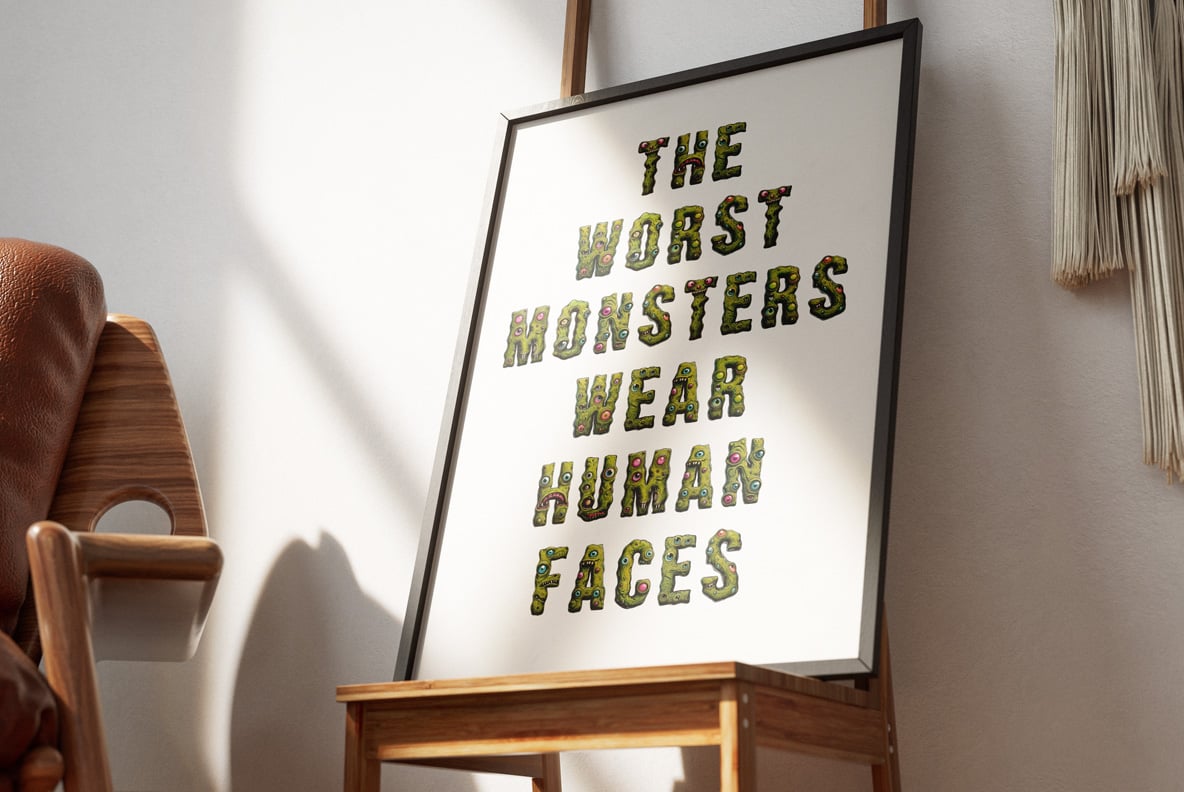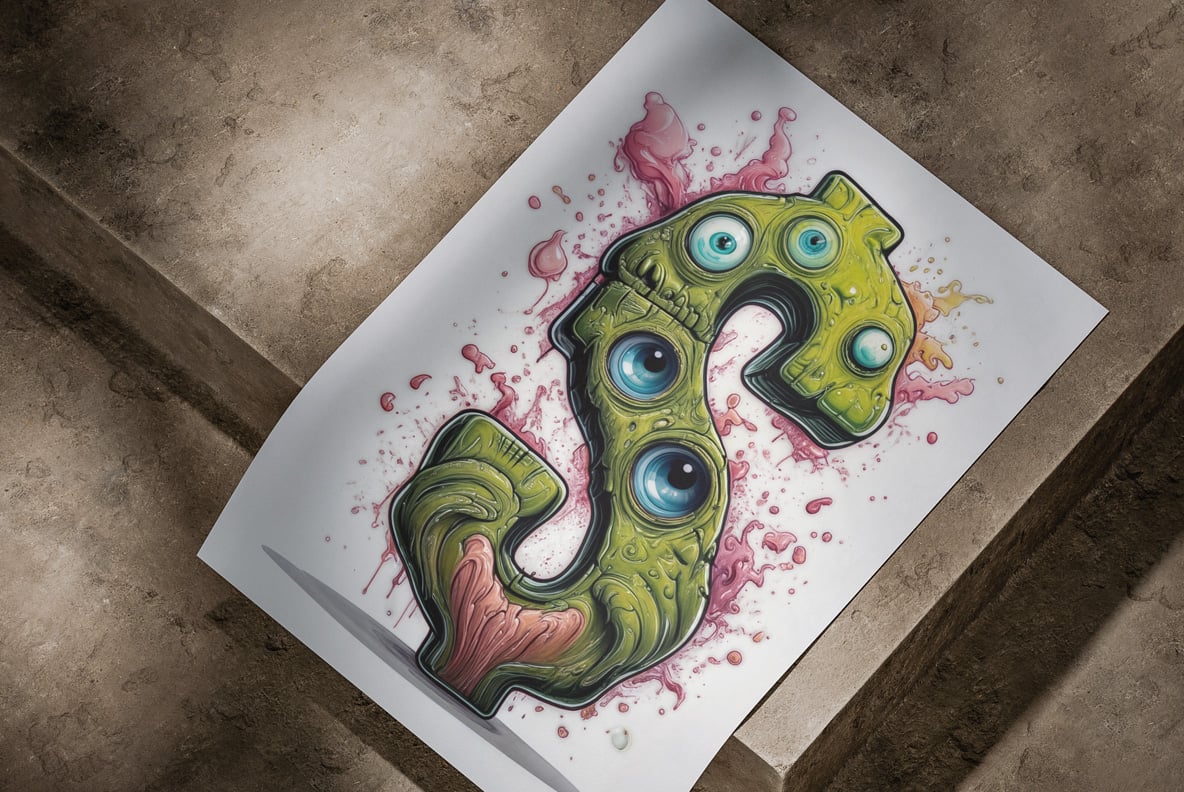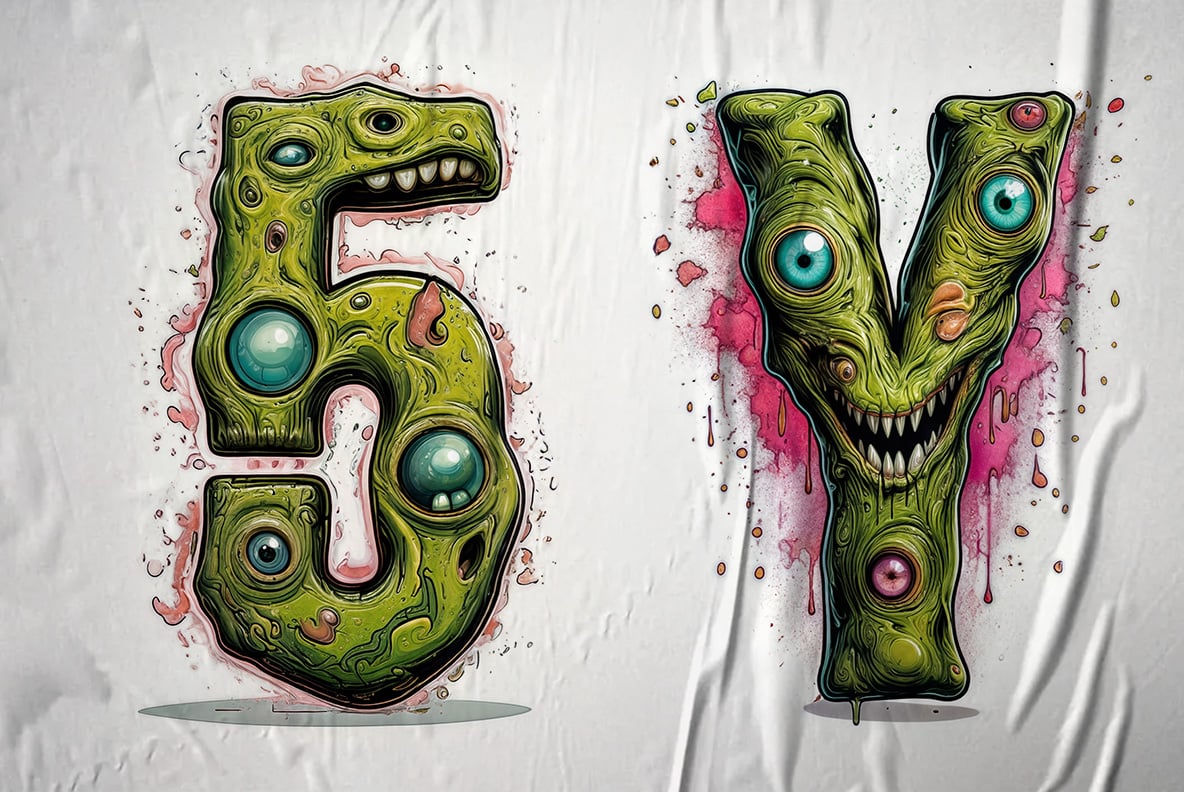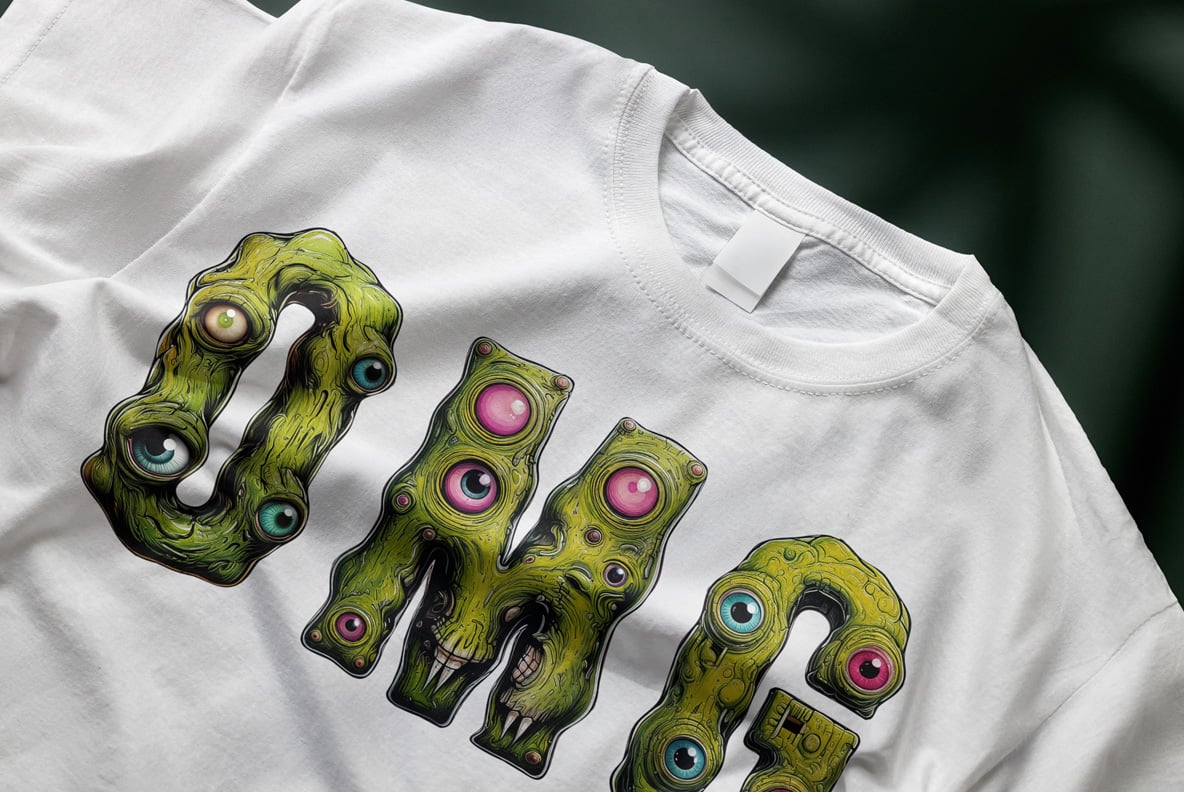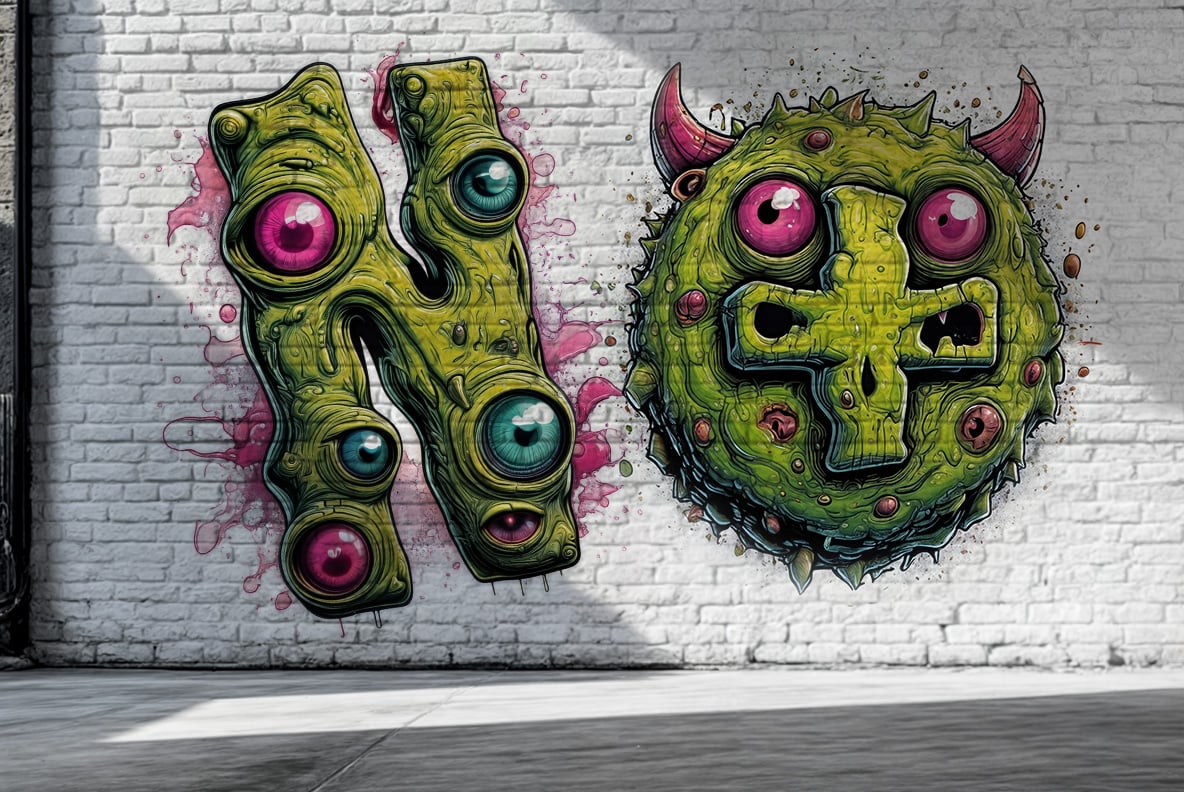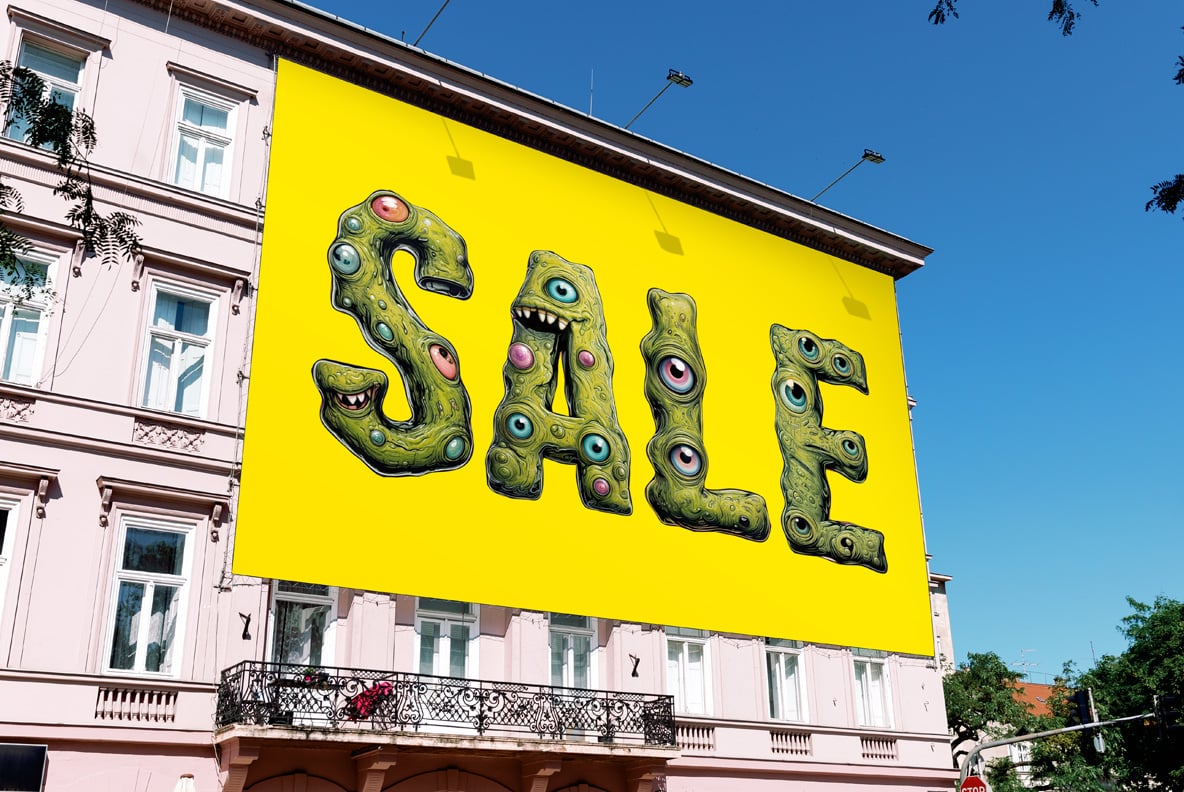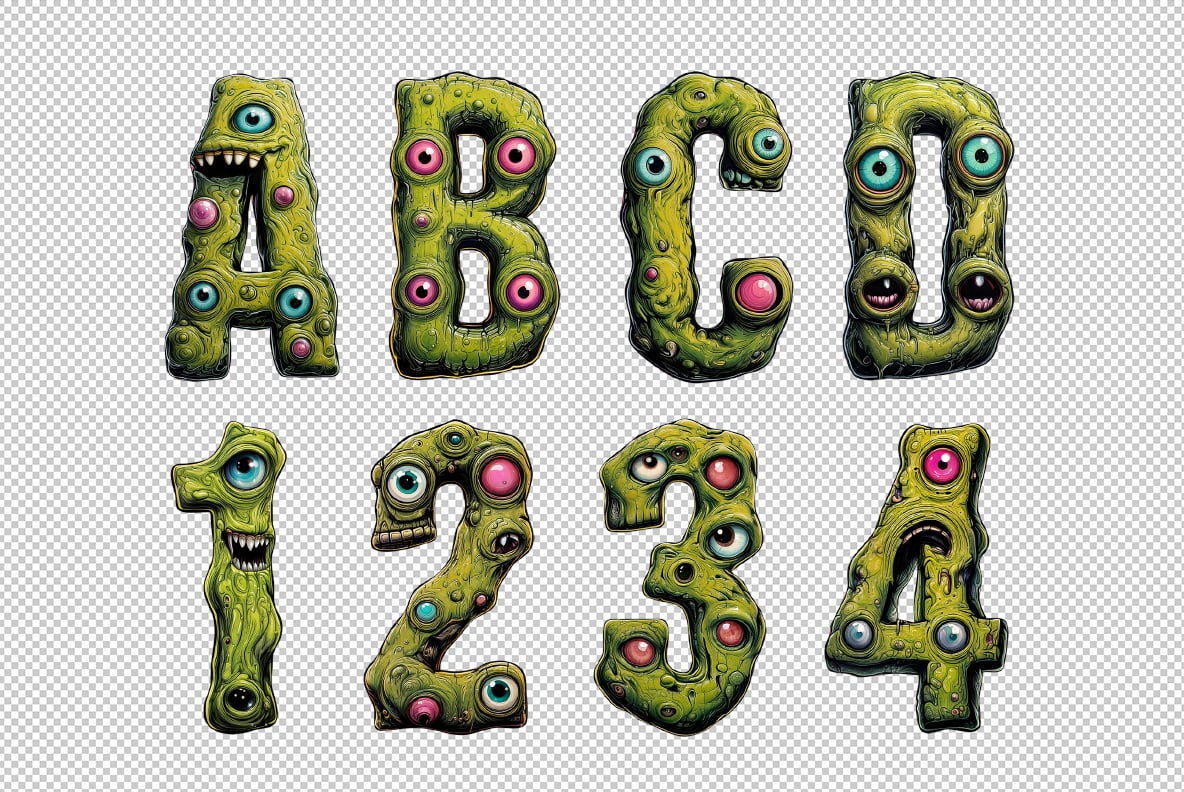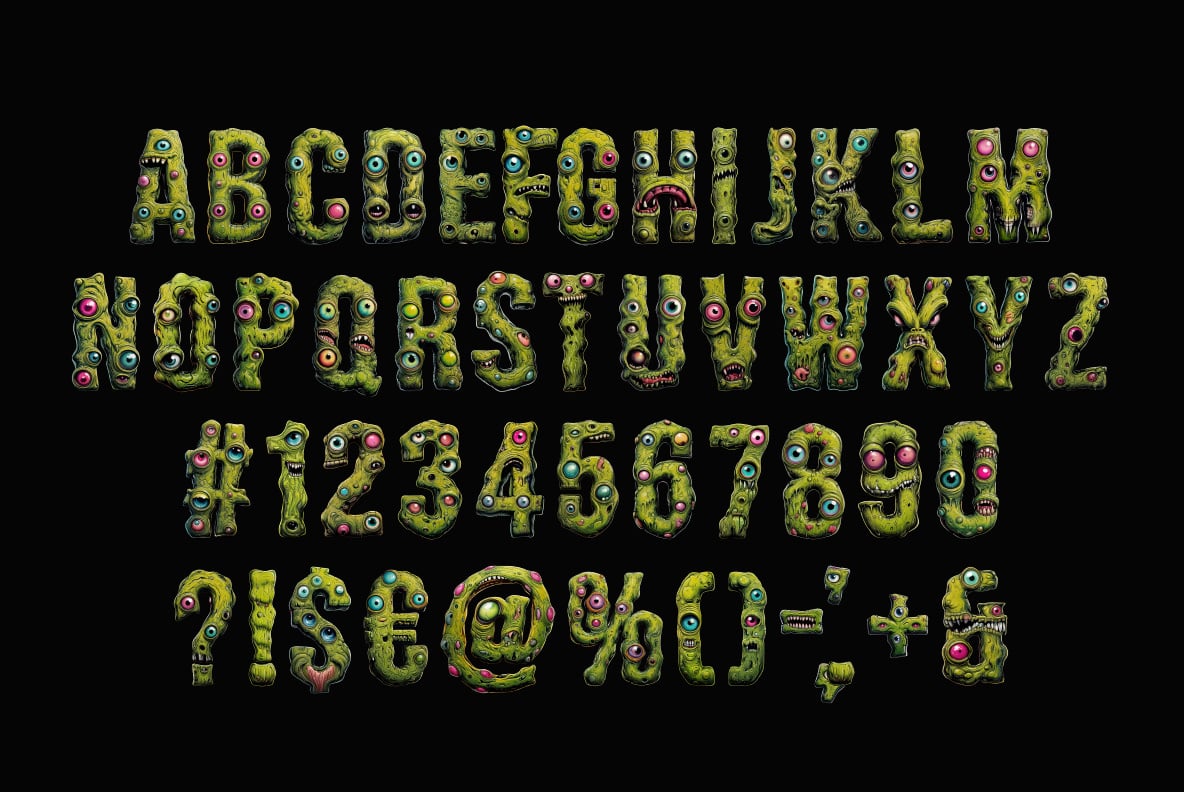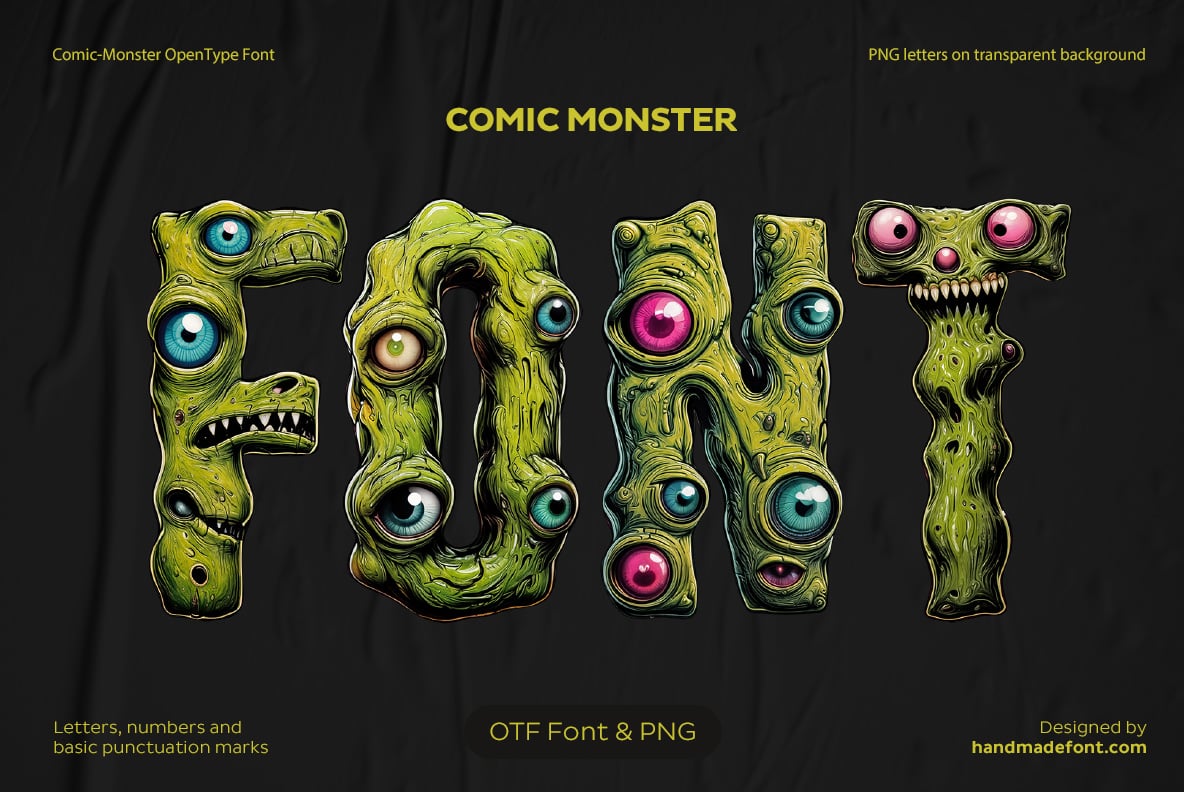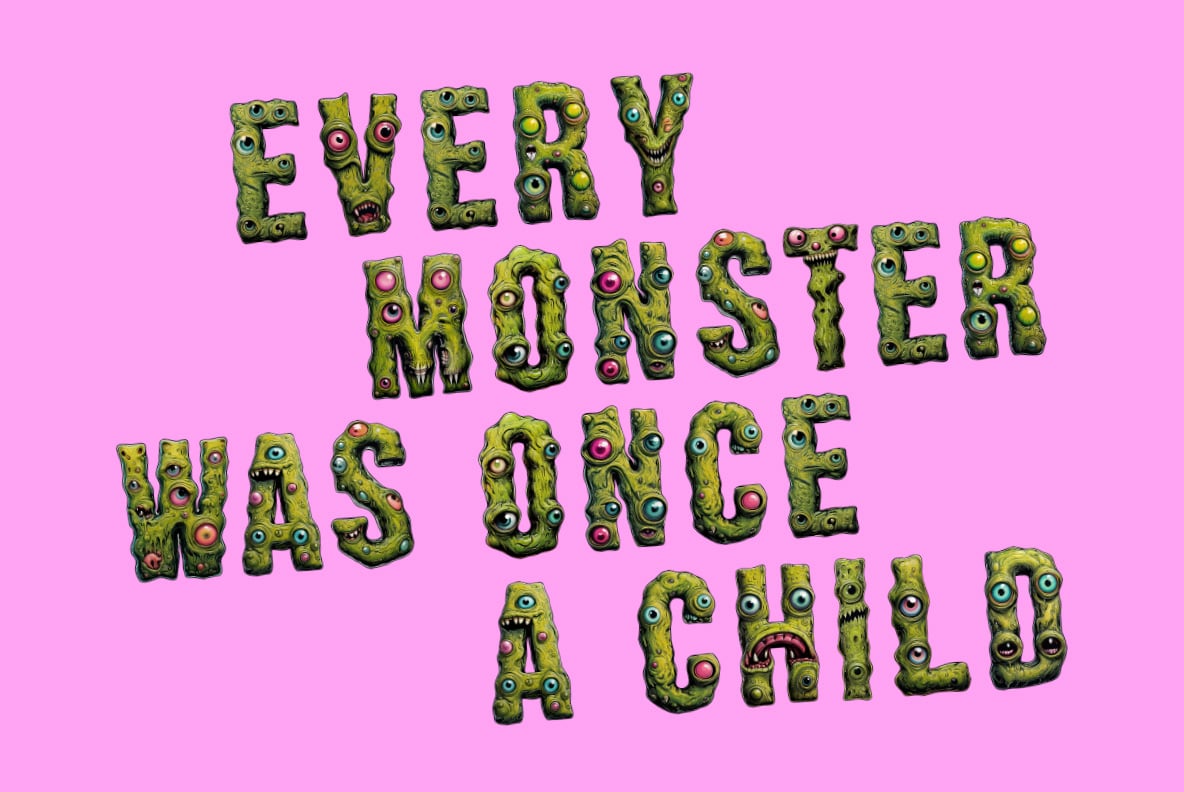
Comic Monster Font
Nightmare fuel has never been this fun! Comic Monster Font is the unholy lovechild of a haunted house and a cartoon gone horribly wrong. Each letter oozes with eerie, slimy textures, bulging eyeballs, and unsettling toothy grins—because who doesn’t love a font that stares back at you? Dripping in grotesque green goo, this monster-inspired typography is tailor-made for Halloween horrors, creepy comics, or summoning ancient terrors from the deep. Whether you’re designing for a haunted carnival or just want to make your text scream (literally), this spooky, grunge-infused alphabet will ensure your words are as terrifying as they are unforgettable.